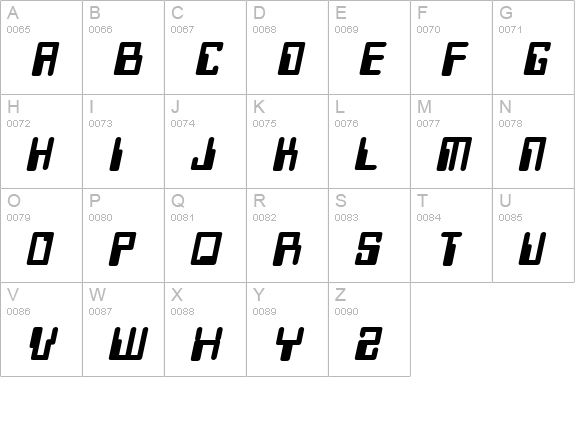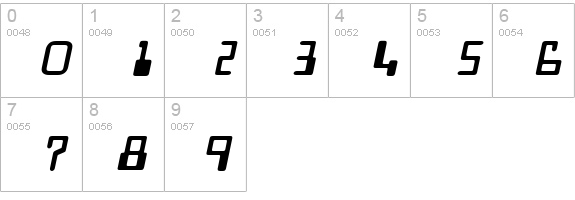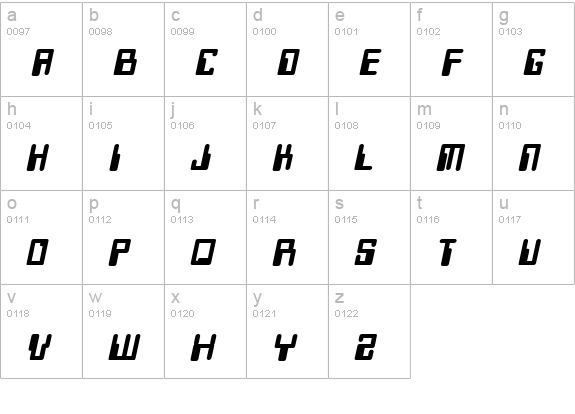
Keys Heavy Italic is a heavy, high-impact, italic variant in the Keys typeface family \xE2\x80\x94 well suited to high-impact headlines, posters, and display advertising.